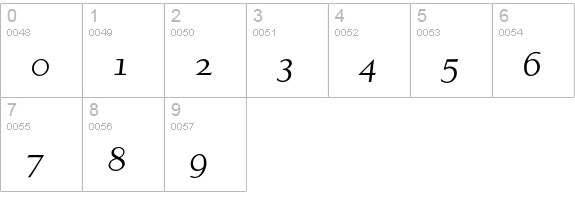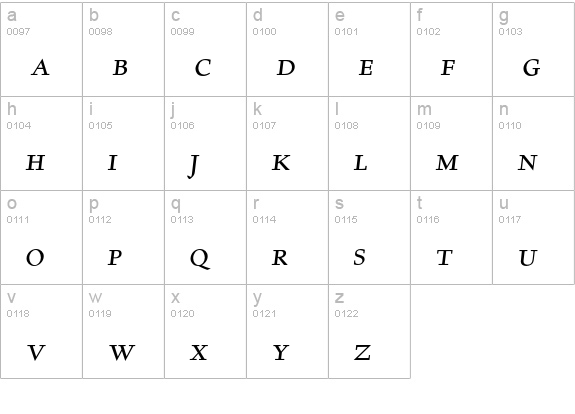
AlbertanH-SC-Italic Font Details
AlbertanH-SC-Italic is a distinctive, italic variant in the AlbertanH typeface family \xE2\x80\x94 well suited to design and typography projects.
AlbertanH-SC-Italic is a beautifully crafted font that exudes elegance and sophistication. Its sleek italic design adds a touch of flair to any project, making it perfect for use in headings, titles, and other display purposes. The font features clean lines and graceful curves that give it a timeless appeal. What sets AlbertanH-SC-Italic apart is that it is available for free download at FontsMarket.com. This means that you can easily incorporate this stunning font into your designs without any cost. Whether you're working on a personal project or a professional one, AlbertanH-SC-Italic is sure to elevate your work with its refined aesthetic. Don't miss out on the opportunity to enhance your designs with this versatile and stylish font. Download AlbertanH-SC-Italic for free today and see the difference it can make in your projects!